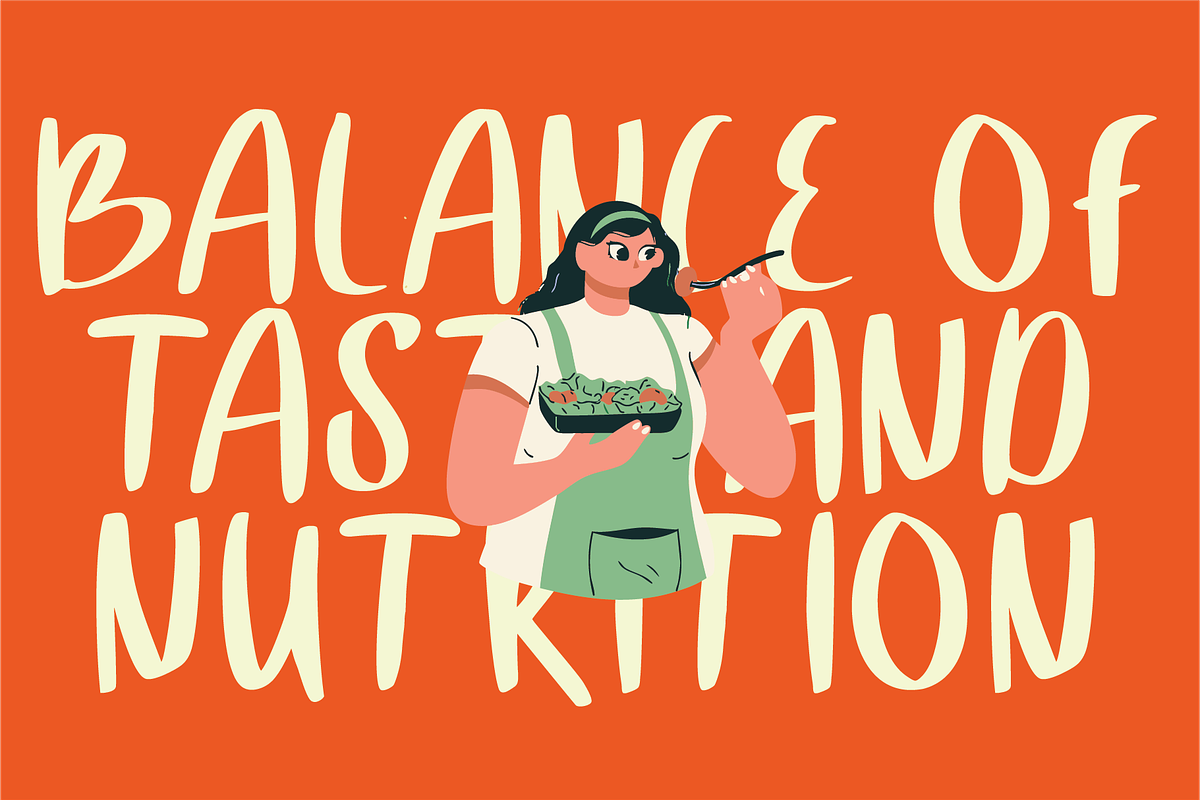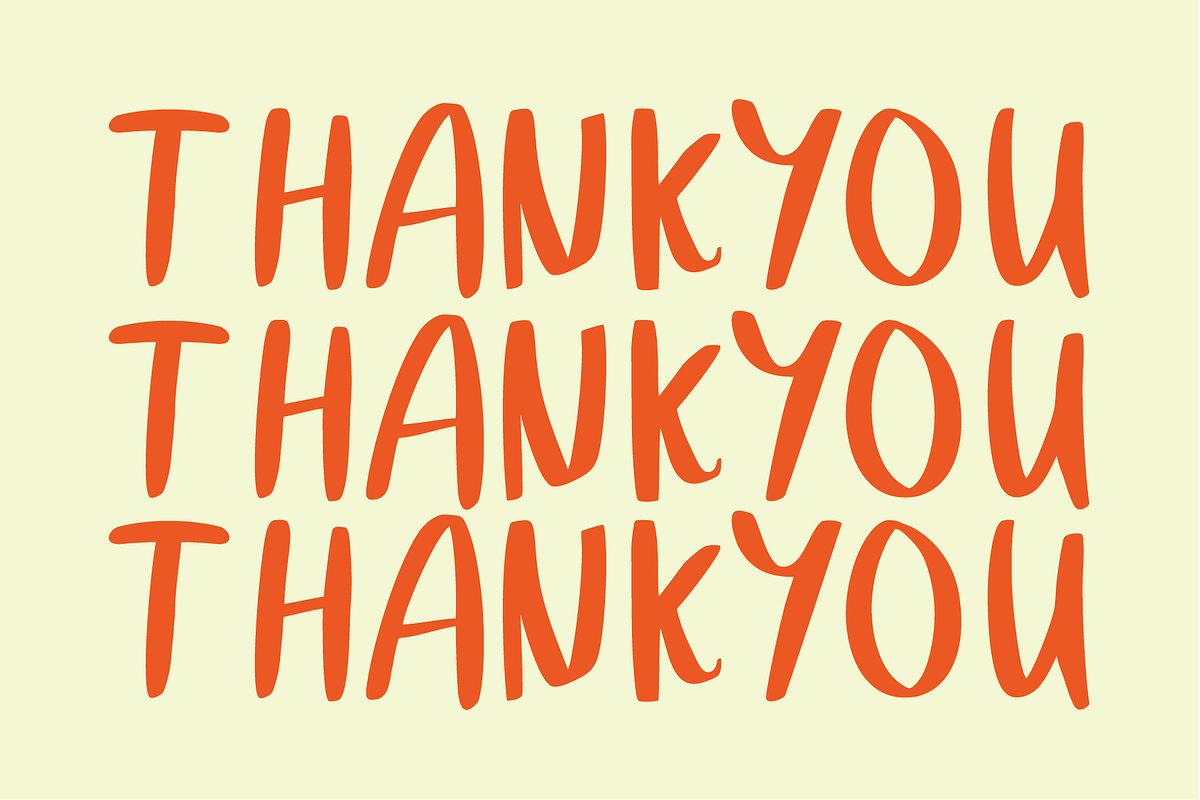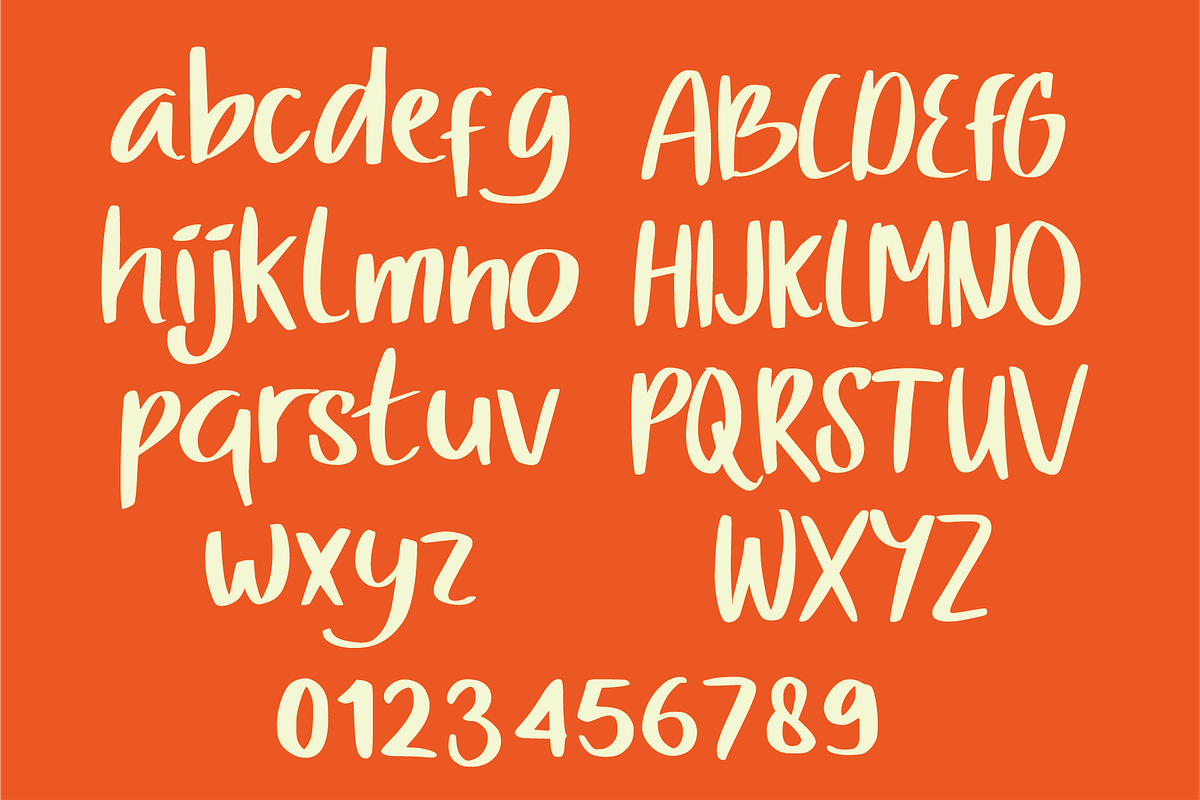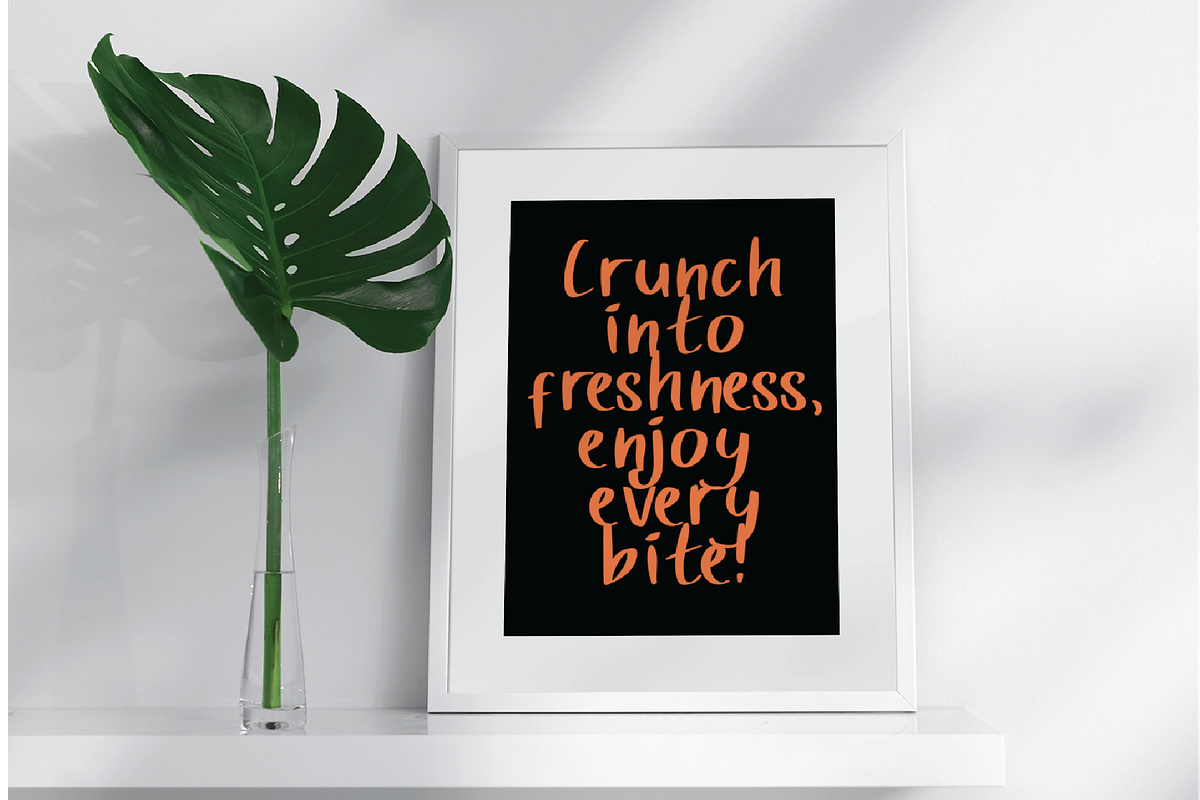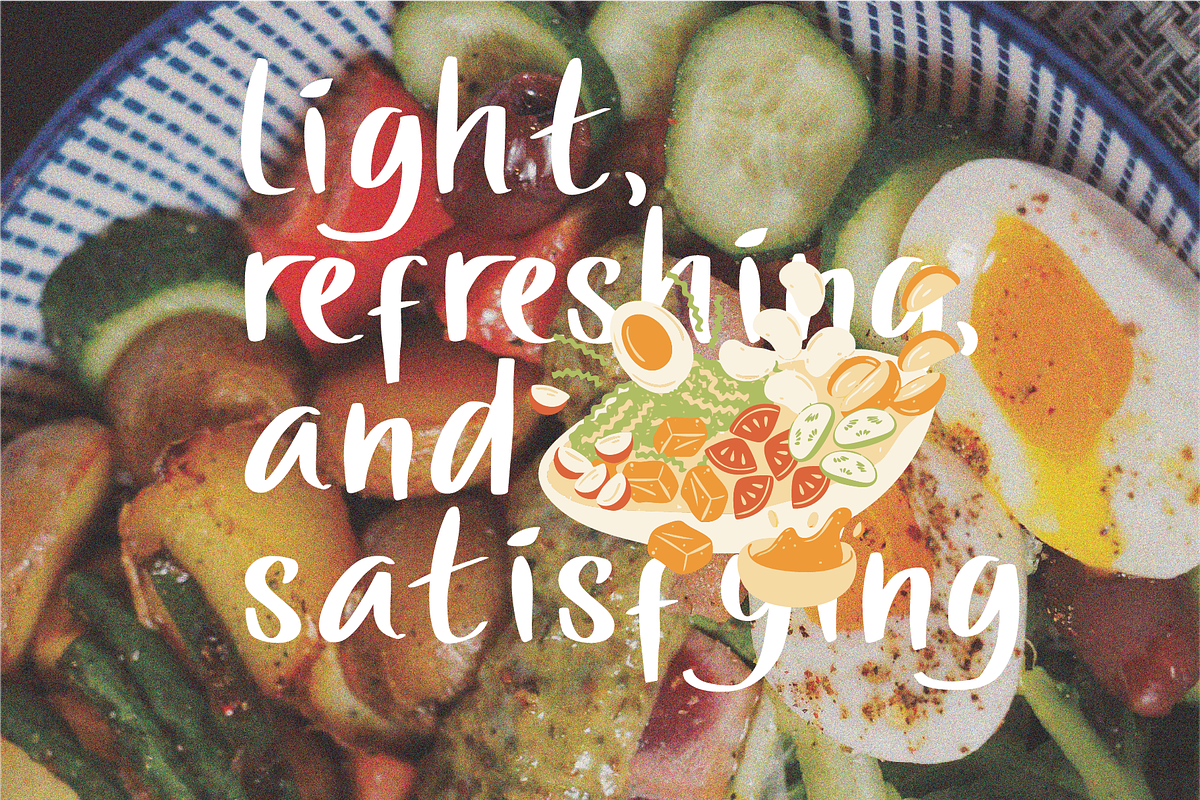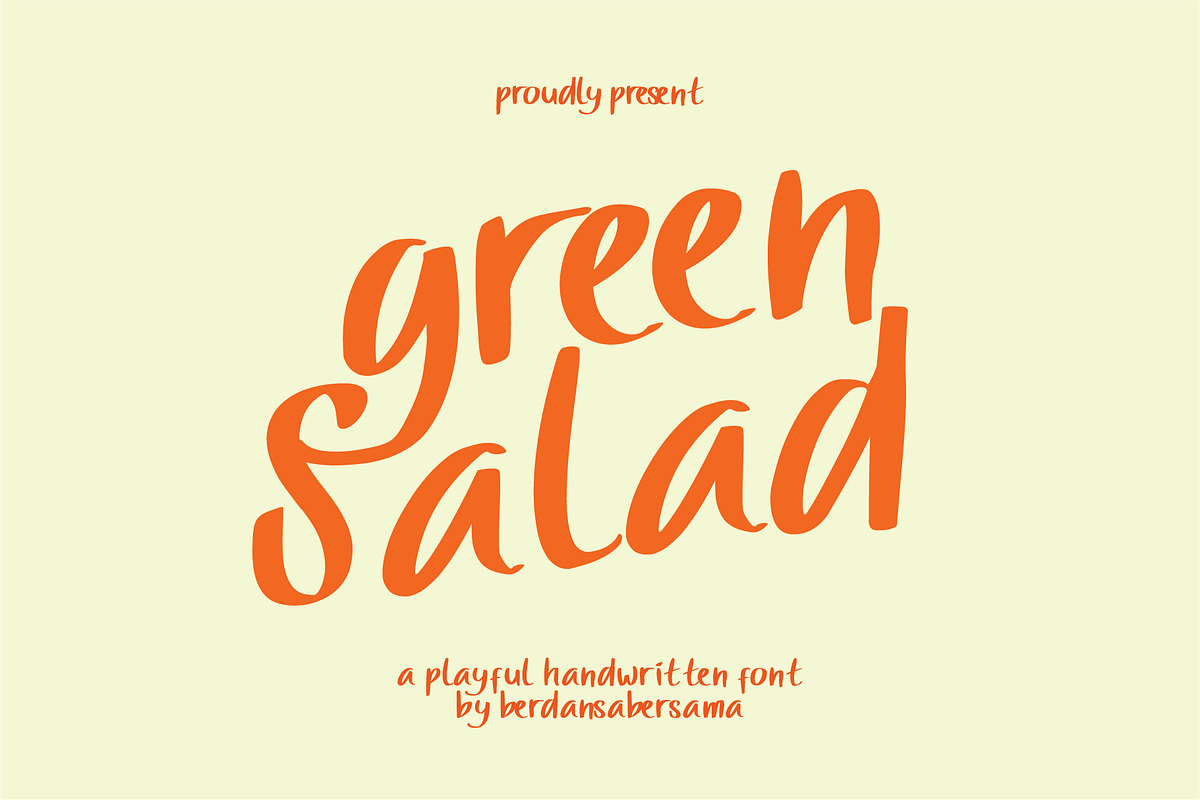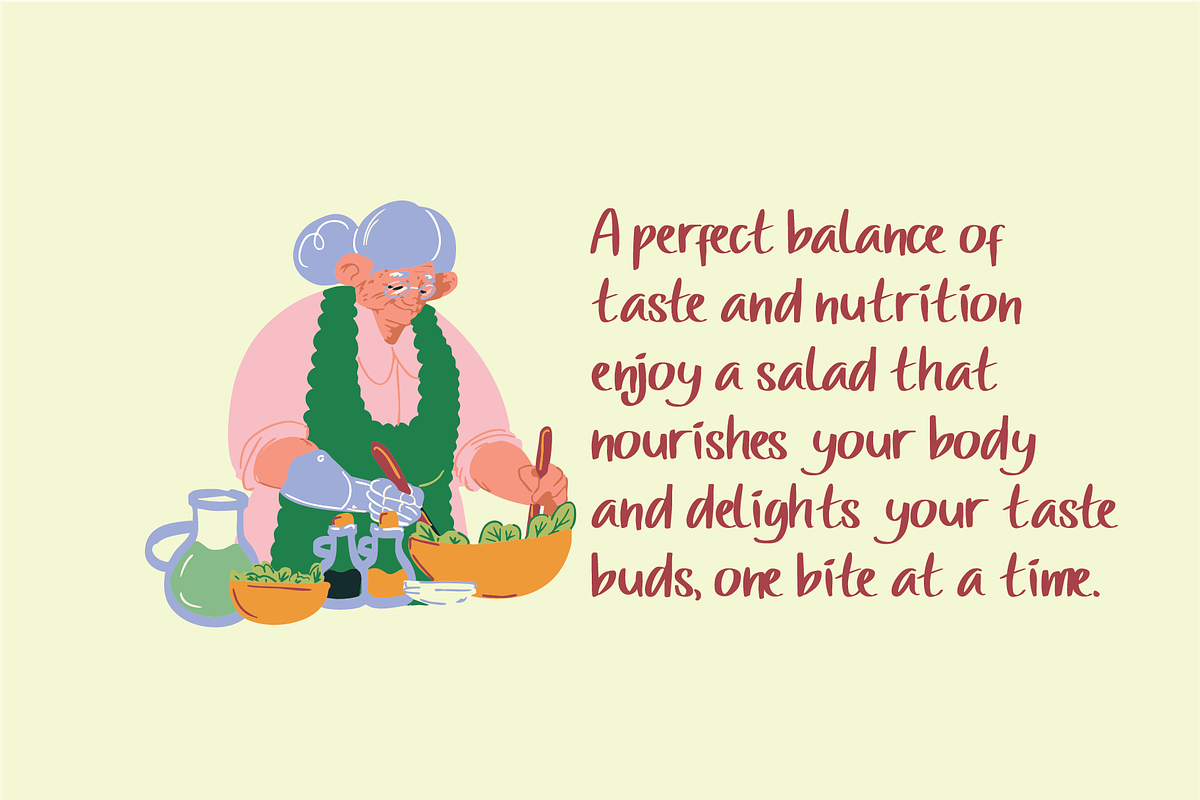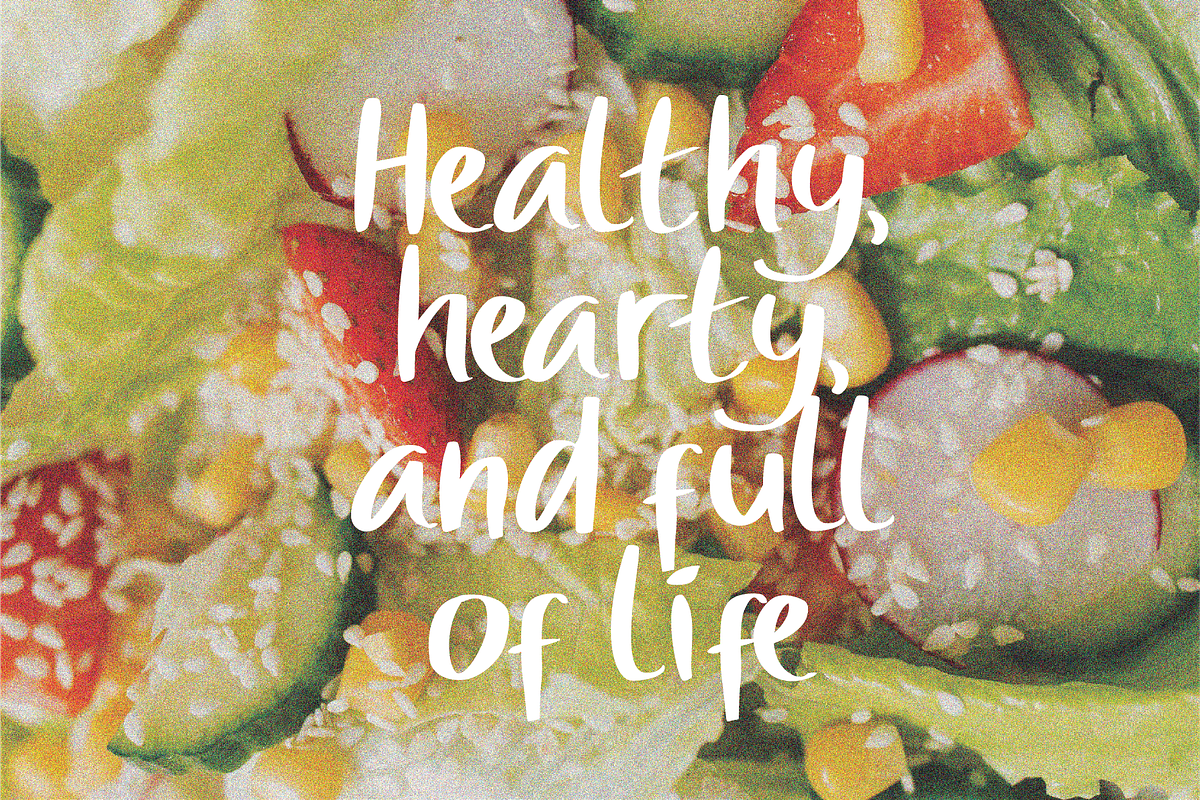
Green Salad Playful Font
Green Salad is a smooth and friendly handwritten script font with a warm, natural flow. Its rounded strokes and casual lettering style create a relaxed, homey feeling—perfect for designs that want to feel fresh, inviting, and handcrafted.
- Numbers, marks and symbols